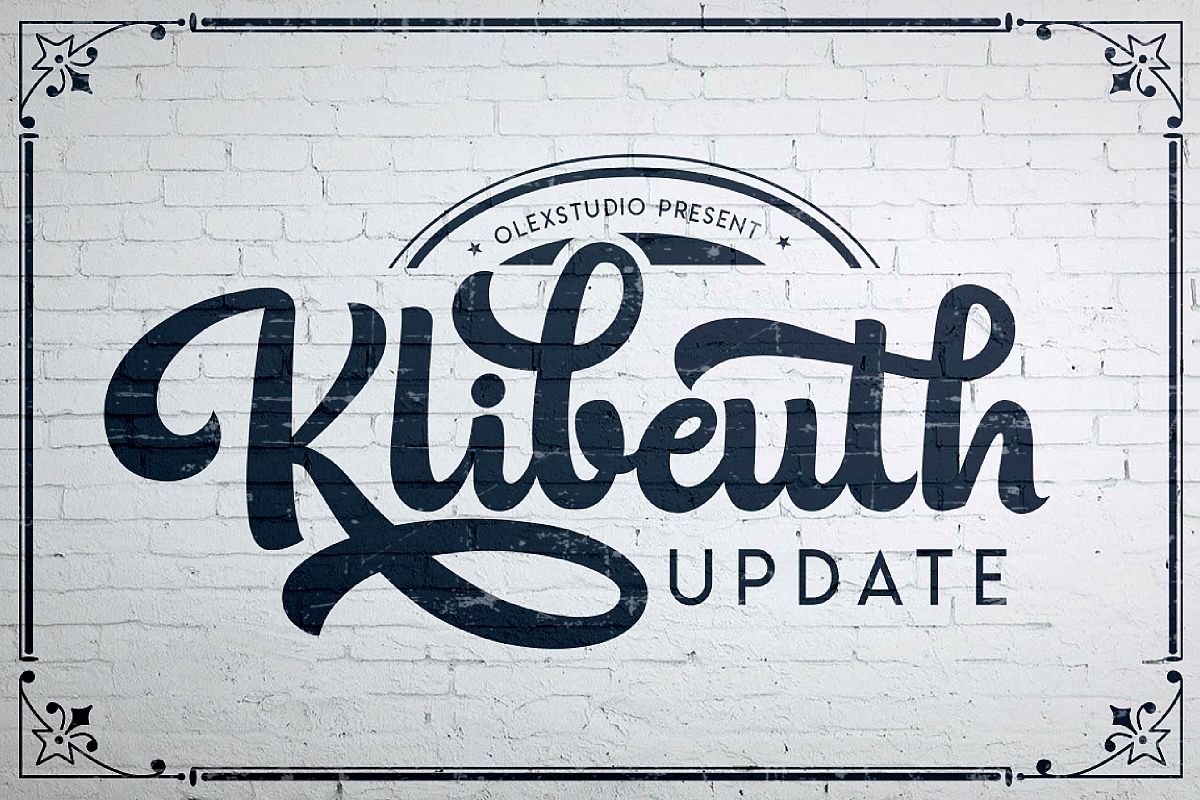
KLIBEUTH script - update
"INTRODUCING"
KLIBEUTH script is a beautiful Modern clean font Typeface, This Font will look gorgeous on all your designs, wedding invites, branding materials, logo's, t-shirt, poster, business cards, quotes and all project design other.